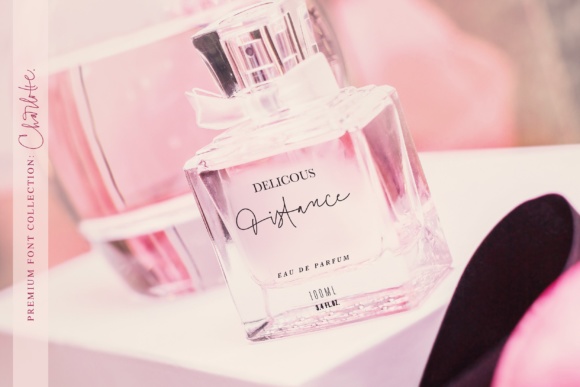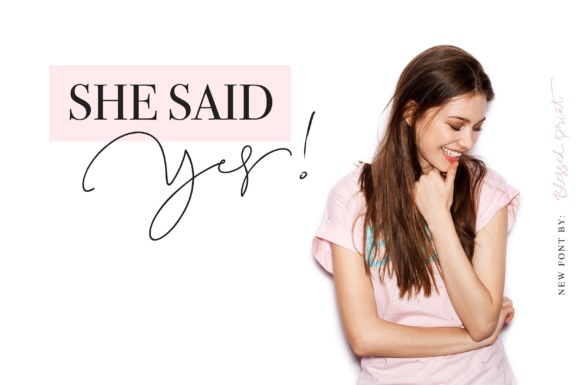
Charlotte Script Font
db-ku.com - Script & Handwritten -- The Charlotte is an elegant and chic font, ready to add unique appearance to your designs. It is perfect for wedding designs, blogs, logos and much more.